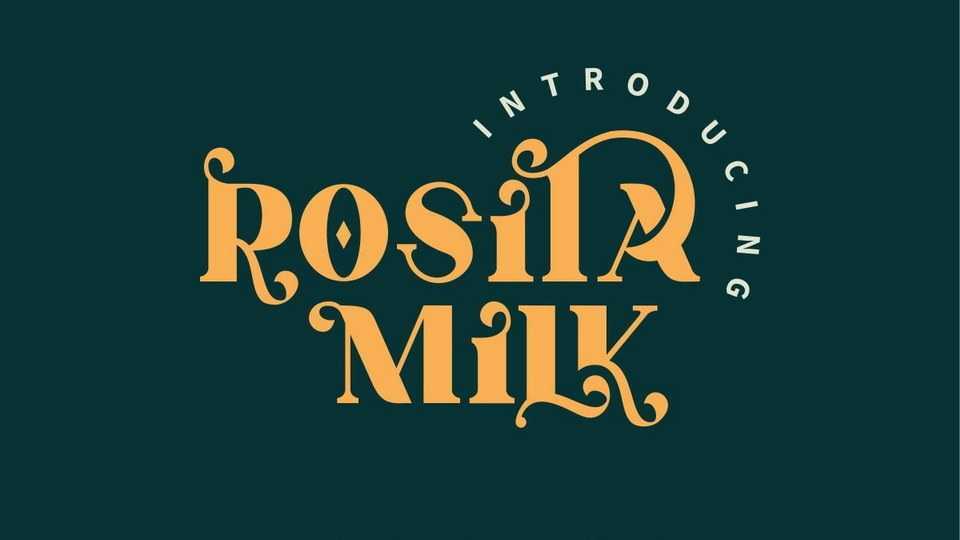
Download Rosita Milk font, a bold and fancy decorative serif typeface. Rosita Milk is perfect for branding, logo and any kind of display and editorial use.
Designer: GFR creative